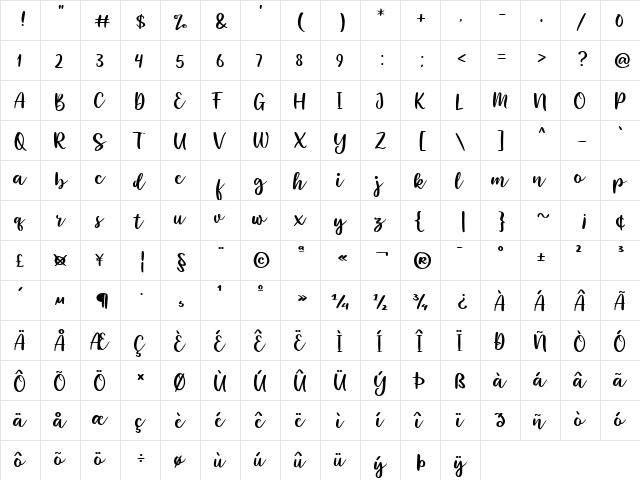
Roshtida Regular
| Designer | Ali Hamidi |
Design Context for Roshtida Typeface
Roshtida is a composed and adaptable typeface that performs quietly and consistently across a wide range of design contexts.